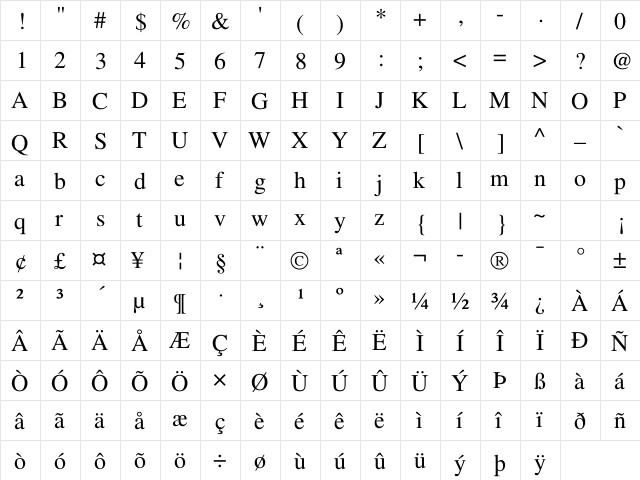
FreeSerif Medium
Design Context for FreeSerif Typeface
FreeSerif carries the refined structure of traditional serif typography, with bracketed terminals and considered proportions that communicate credibility and craft.
Pro Tip: Use FreeSerif for editorial body copy and considered headline work. Pair with a neutral sans for UI elements or captions to create a classic hierarchy.